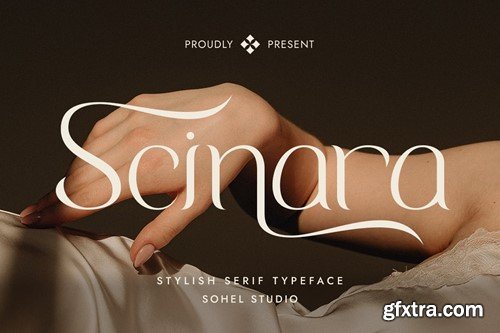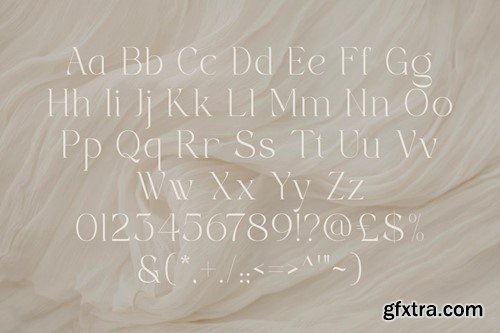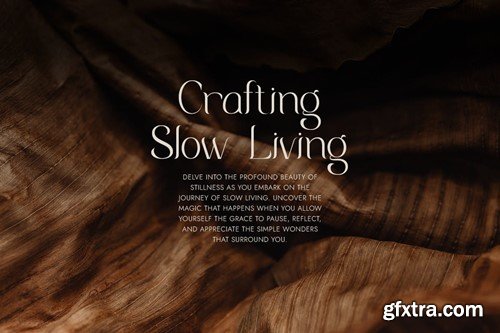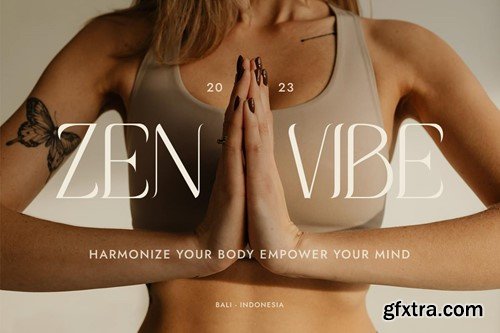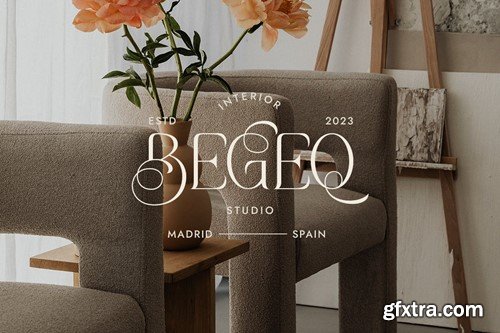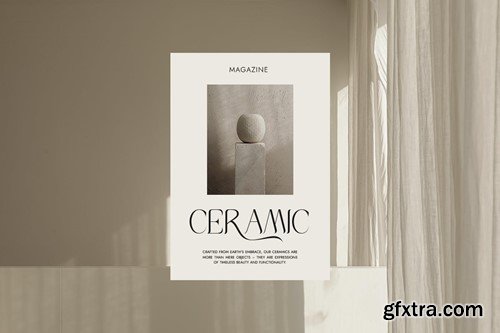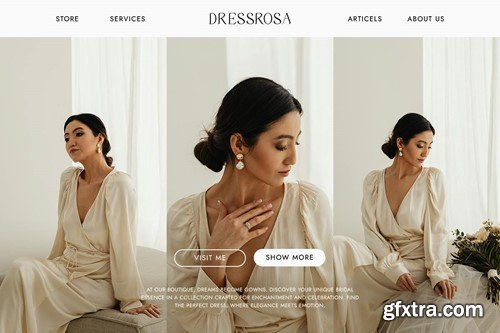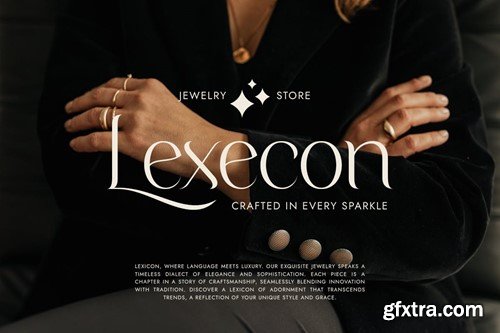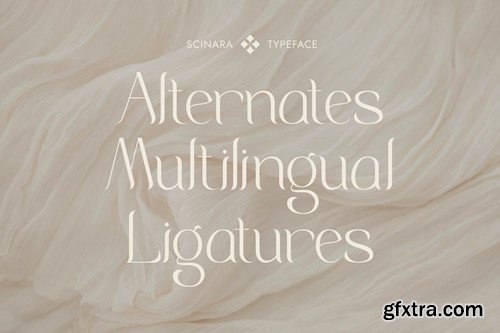
Scinara - is a Modern Elegant Serif typeface with Unique alternative , multilingual support with perfect kerning. This typeface is perfect for an elegant & luxury logo , classy editorial design, women's magazine, fashion brand , cosmetic brand, fashion promotion , modern advertising design, invitation card, art quote, home decoration , book/cover titles, special events, Tote bag, T-shirt, Advertising and much more. Scinara Features: While using this product, if you encounter any problem or spot something we may have missed, please don't hesitate to drop us a message. We'd love to hear your feedbacks in order to further fine-tune our products. Thanks and have a wonderful day .